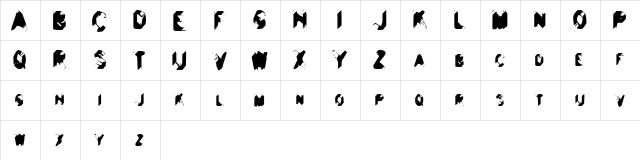
Balls to the Wall Regular
Design Context for Balls to the Wall Typeface
Balls to the Wall is a composed and adaptable typeface that performs quietly and consistently across a wide range of design contexts.